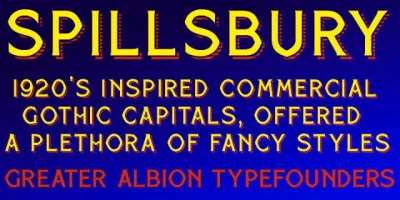
Spillsbury Font
Spillsbury Font is perfect for classic British estate branding, traditional countryside tourism, heritage village signage, English pub materials, refined manor house communications, historic market town promotions, distinguished rural businesses, and authentic English countryside projects that require charming, village-inspired typography.
This font is exciting because it captures the quintessential charm and pastoral elegance of traditional English villages, with letterforms that embody the same timeless appeal and countryside sophistication found in historic market towns and rural English heritage. Its charming character reflects the authentic warmth and community spirit that defines genuine English countryside culture, making it ideal for brands seeking to convey tradition, authenticity, and genuine rural English character in their communications.
The Spillsbury Font family includes regular and bold weights with complete character sets featuring uppercase and lowercase letters, countryside numerals, village punctuation, and special symbols. It also includes rural alternates and decorative elements that enhance the English village aesthetic and provide additional charm for heritage applications.
Whether you're creating countryside tourism branding or traditional English business materials, Spillsbury Font brings unmatched authenticity and rural appeal to every project. The font's village design makes it perfect for brands emphasizing English heritage, countryside values, and authentic rural experiences in their communications. Its charming character works beautifully across both digital platforms and traditional print media, from tourism websites to village shop signage. This countryside-inspired typeface creates instant recognition and cultural connection for brands seeking to establish credibility within heritage and rural markets. The carefully crafted letterforms ensure excellent readability while conveying the charm and authenticity that defines genuine English village communication, making your message feel welcoming, traditional, and authentically connected to countryside excellence and English rural heritage.